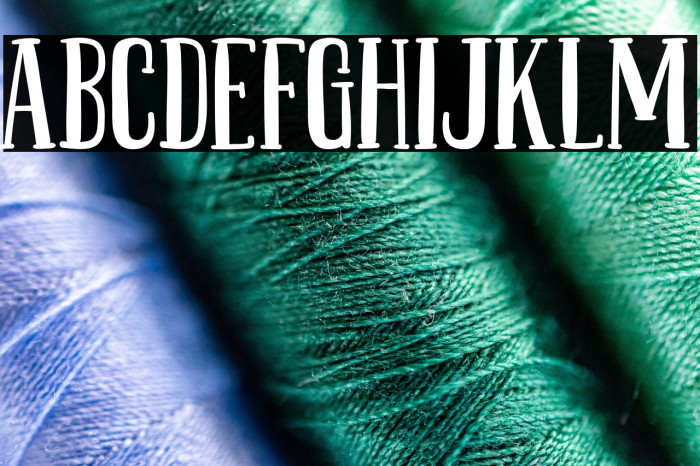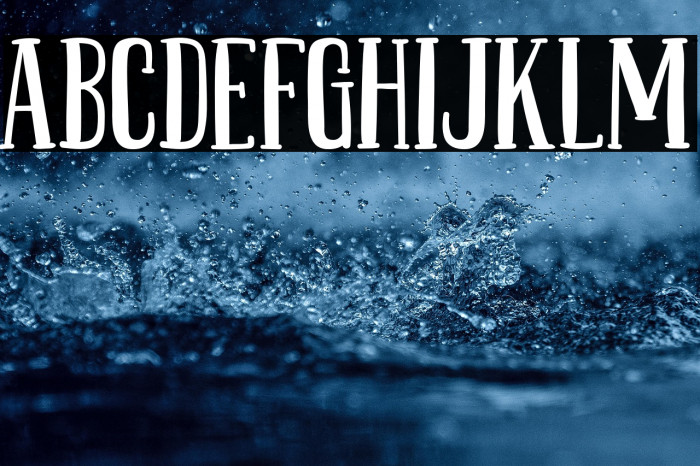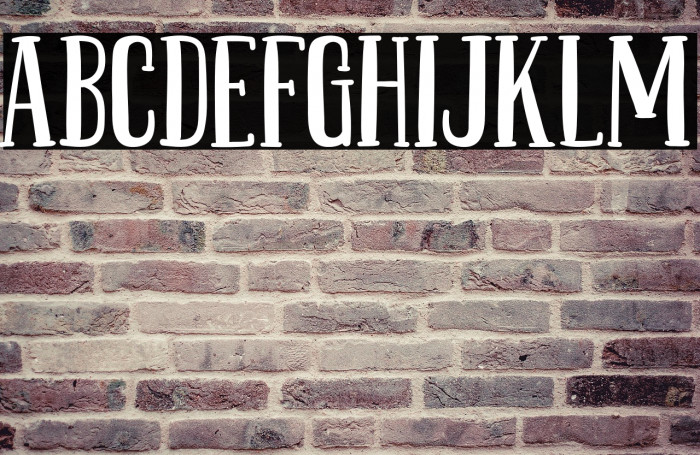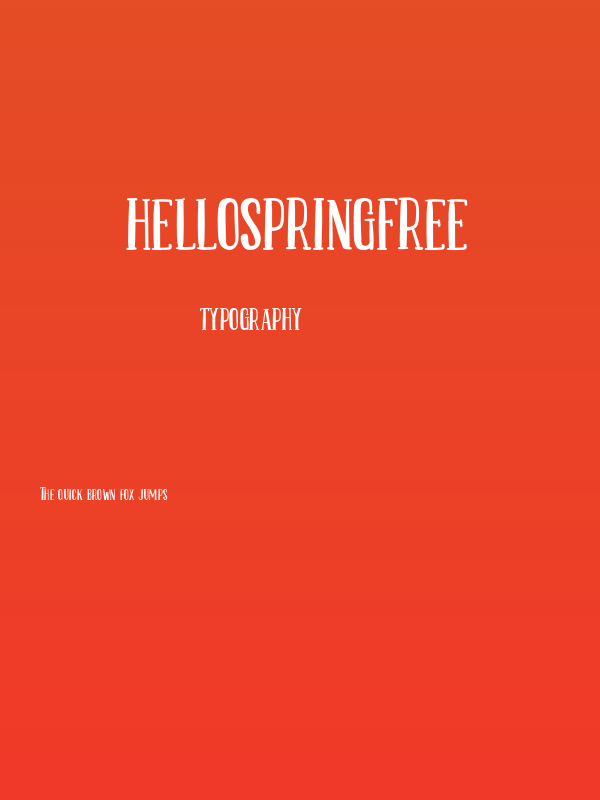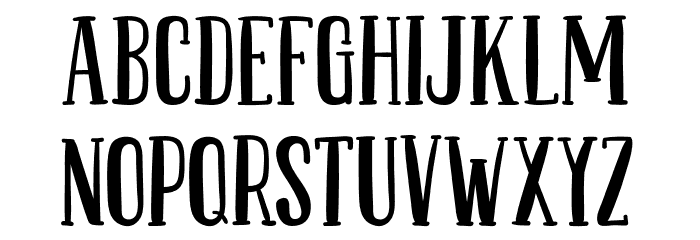
HelloSpringFREE Font
HelloSpringFREE Description
This font features a bold and playful design with a hand-drawn aesthetic. The uppercase letters are tall and narrow, with slight variations in stroke width that add a dynamic and lively feel. The lowercase letters maintain the same playful style, with rounded edges and a consistent height that complements the uppercase set. The numbers and special characters are designed to match the overall whimsical and informal tone, making this font suitable for creative and fun projects. The strokes are moderately thick, providing good readability while maintaining a casual appearance.
| Overall Style | Playful, Informal |